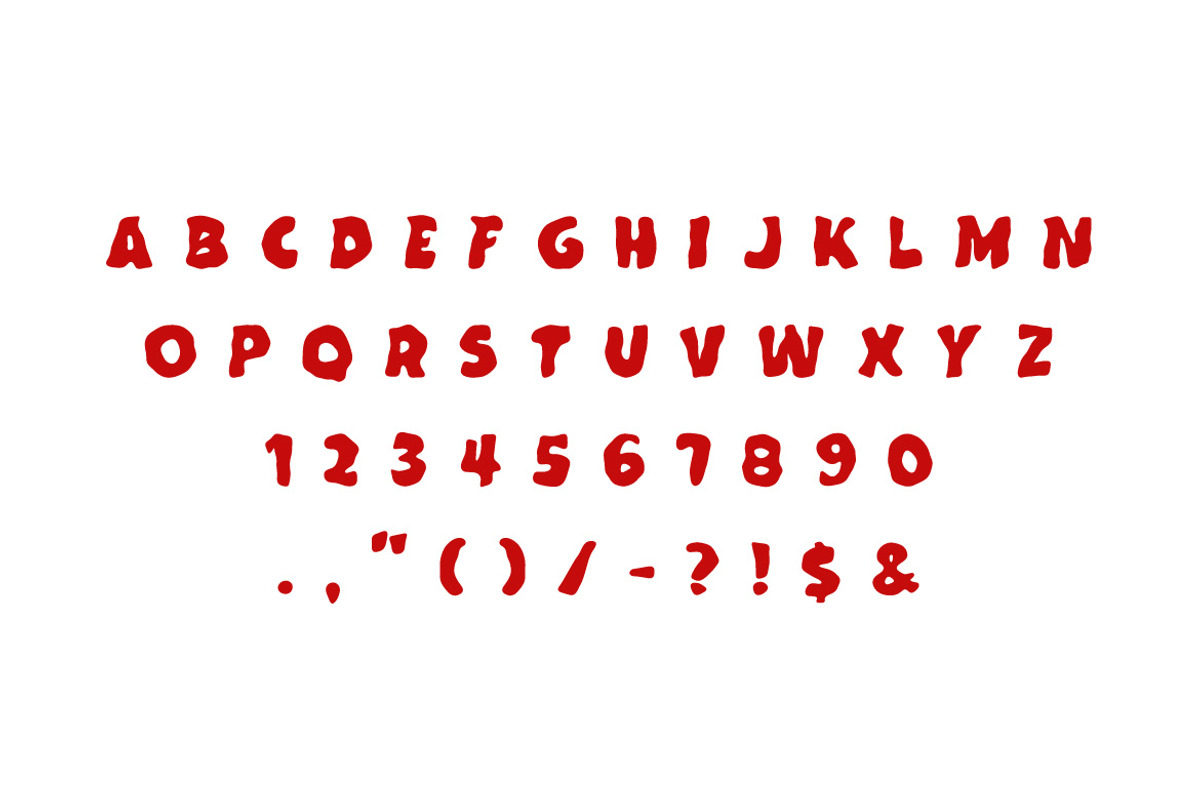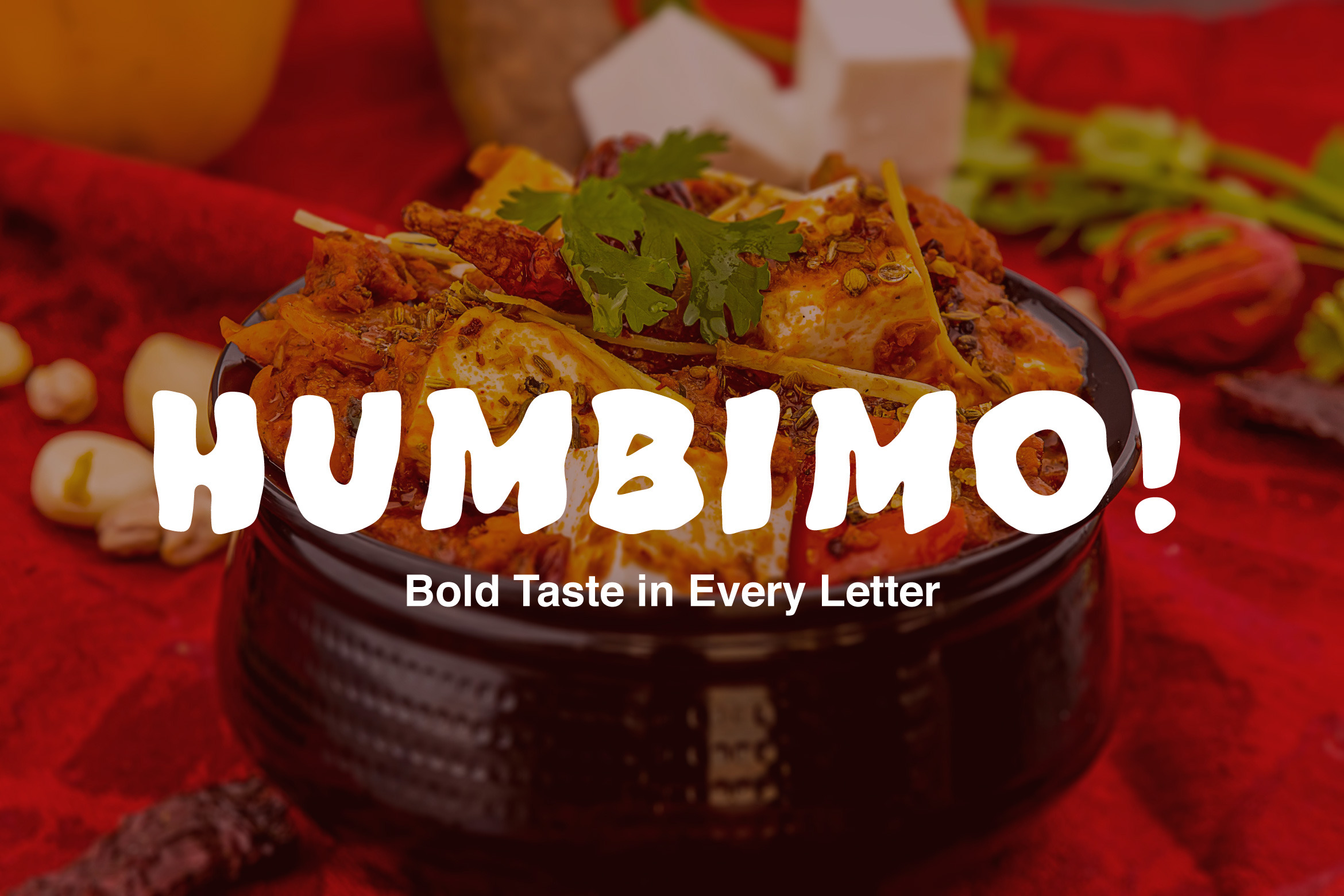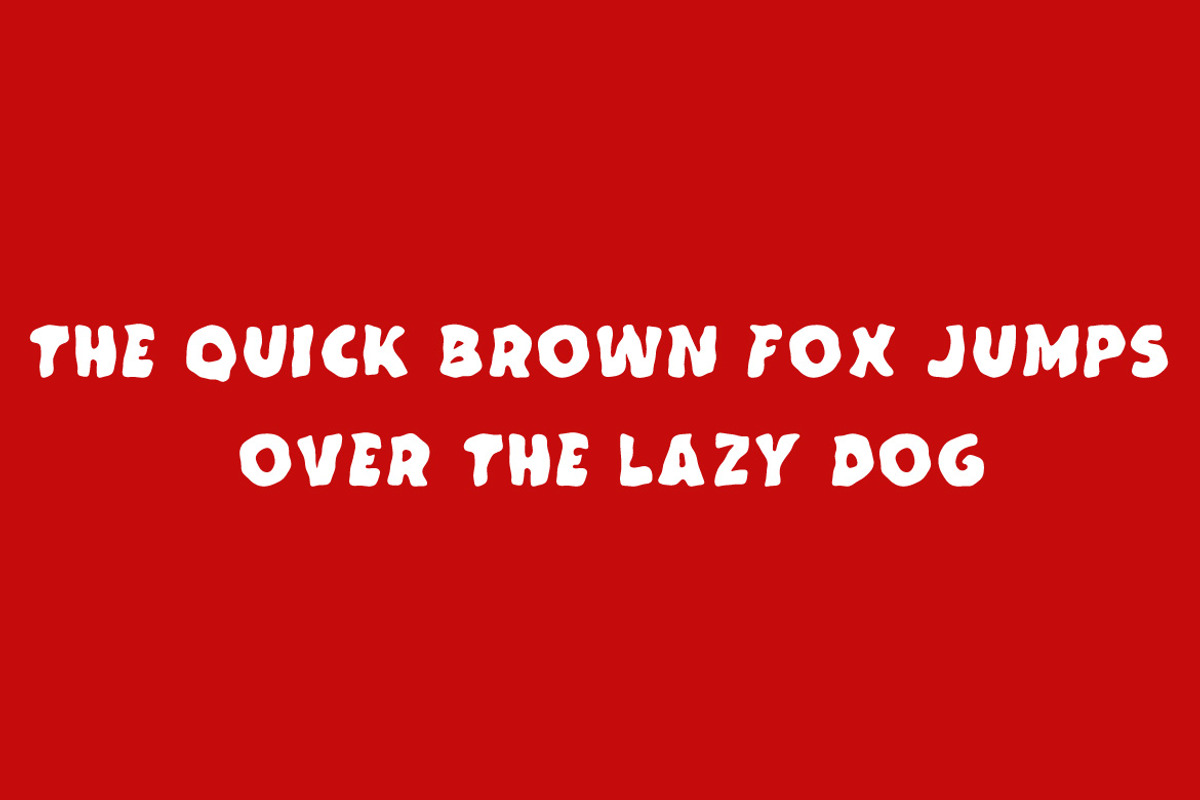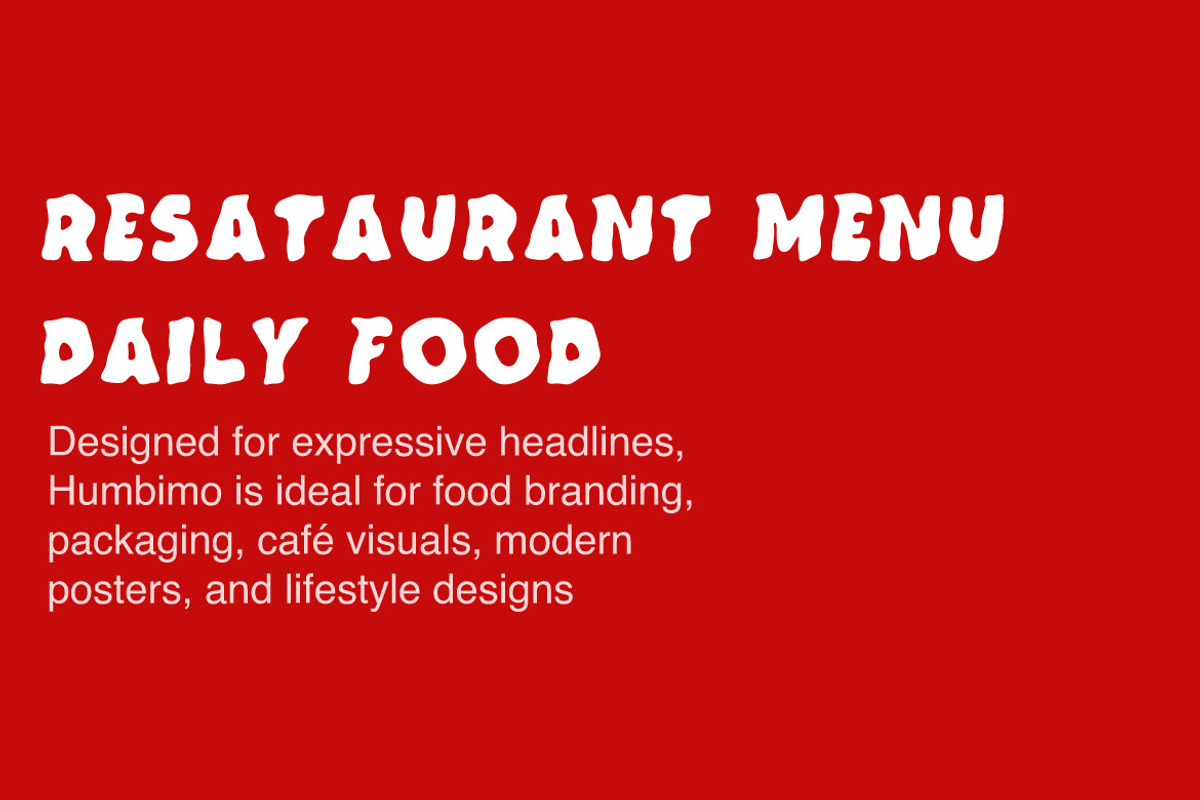
Humbimo -Food & Restaurant Font
Humbimo is a bold rounded display font with smooth curves and confident letterforms. Its soft edges and thick strokes create a warm, friendly tone while remaining strong and highly readable.
Designed for expressive headlines, Humbimo is ideal for food branding, packaging, cafe visuals, modern posters, and lifestyle designs. The font brings a human, inviting feel that works perfectly in projects that need personality, warmth, and visual impact.